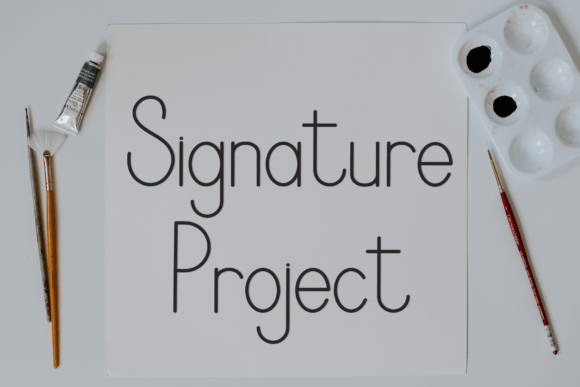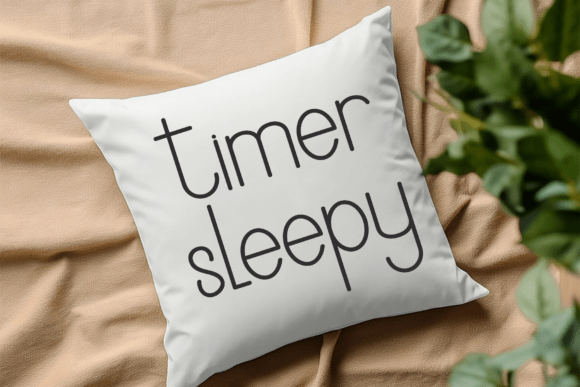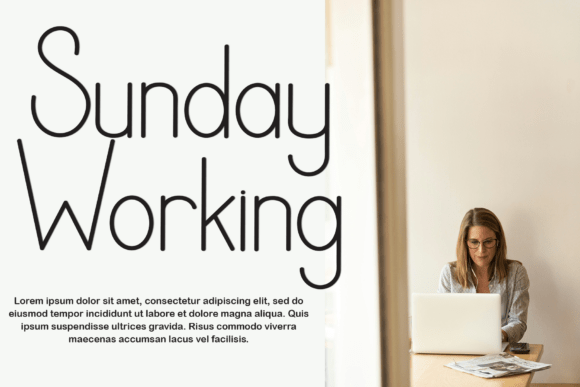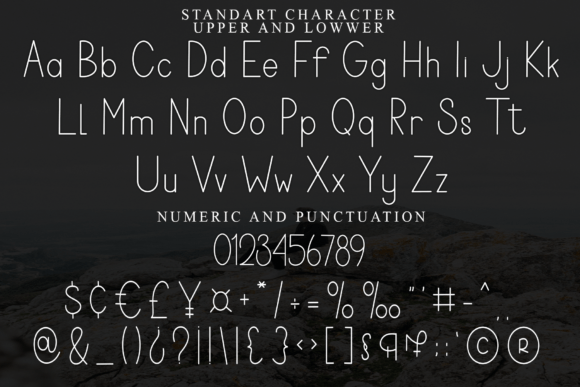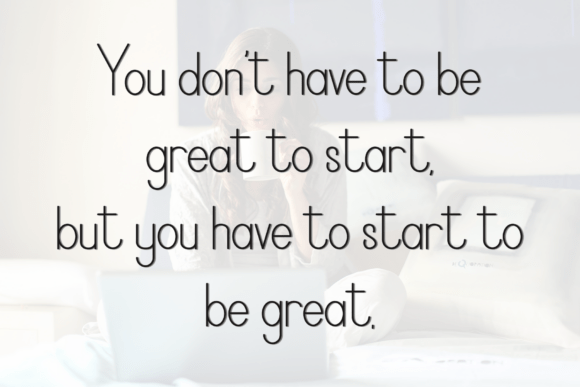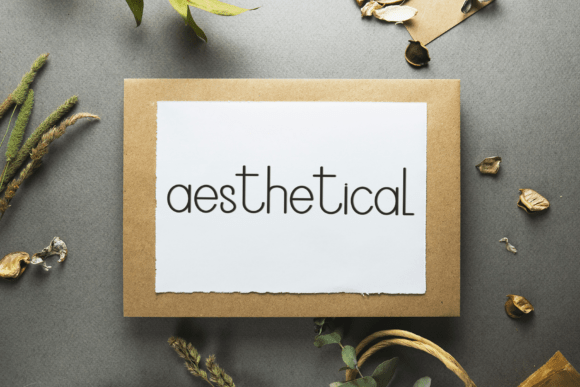
Introducing Bright Brother Font: Elevate Your Designs with a Unique Touch
In the world of typography, a font can make or break a design. It’s the foundation upon which creativity is built, and the right choice can elevate a project from ordinary to extraordinary. For designers, crafters, and creatives looking for a font that stands out from the crowd, Bright Brother Font is a game-changer. This beautiful, eye-catching font is designed with a soft, unique touch that adds a special character to any project.
The Distinctive Character of Bright Brother Font
Bright Brother Font boasts distinctive strokes that give it a special character, making it not only meaningful but also incredibly versatile for future use. Its unique design ensures that it stands out in a sea of more traditional fonts, offering a fresh and modern aesthetic that’s perfect for a wide range of applications. Whether you’re working on a design project, crafting a logo, or creating artistic content, Bright Brother Font provides the perfect blend of style and substance.
One of the key benefits of Bright Brother Font is its versatility. With a variety of characters at your disposal, you’re free to experiment with different styles and creative expressions. This font is not just limited to digital designs; it’s also perfect for crafts and other creative works that require a personal touch. From handmade cards to custom signage, Bright Brother Font can be used in countless ways to add a unique flair to your creations.
Ideal for a Wide Range of Products
The natural style of Bright Brother Font makes it an ideal choice for a multitude of products. Whether you’re designing branding materials, crafting custom apparel, or creating digital content, this font can enhance your designs in a way that appeals to a broad audience. Its unique yet approachable aesthetic ensures that your work stands out, while still being accessible and engaging for viewers across different artistic and creative fields.
Enhance Your Designs with Bright Brother Font
For designers and crafters looking to elevate their work, Bright Brother Font is an invaluable resource. Its ability to add a soft, unique touch to any project means that you can create designs that are not only visually appealing but also memorable. In a world where first impressions count, using a distinctive font like Bright Brother can make all the difference.
Bright Brother Font is more than just a font; it’s a creative tool that can transform your designs and crafts. With its unique touch, versatility, and compatibility with various applications, it’s an excellent choice for anyone looking to add a special character to their work. Whether you’re a professional designer or a hobbyist crafter, Bright Brother Font invites you to explore new creative horizons. So why settle for ordinary when you can make your designs extraordinary with Bright Brother Font?